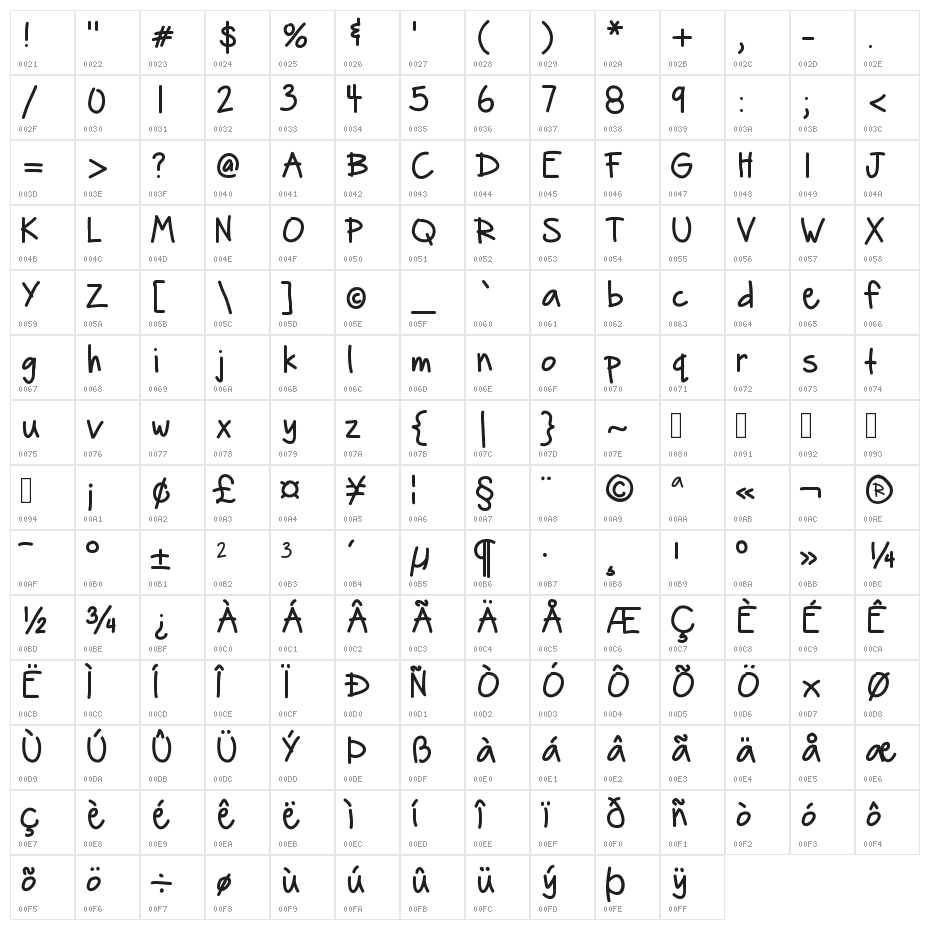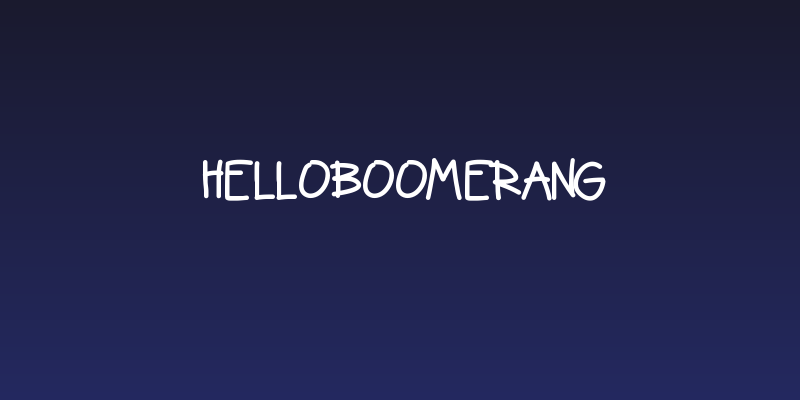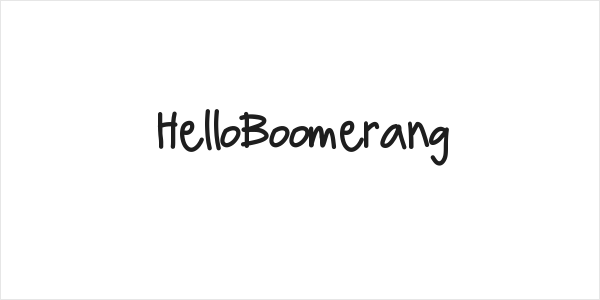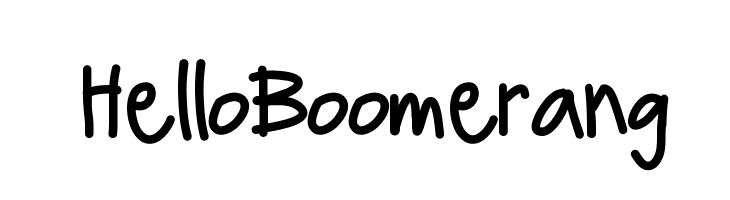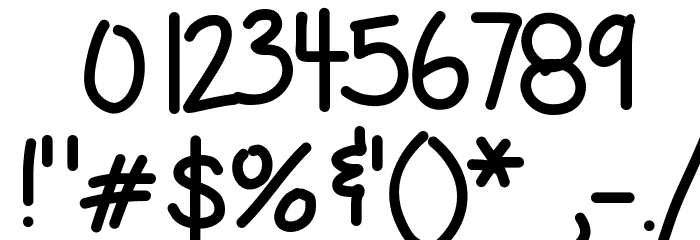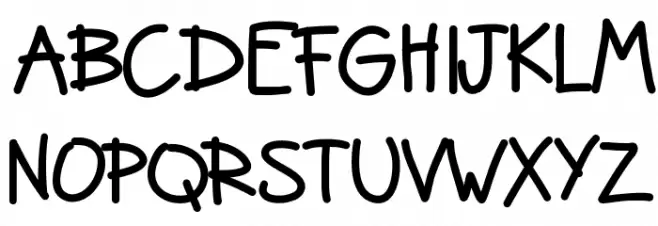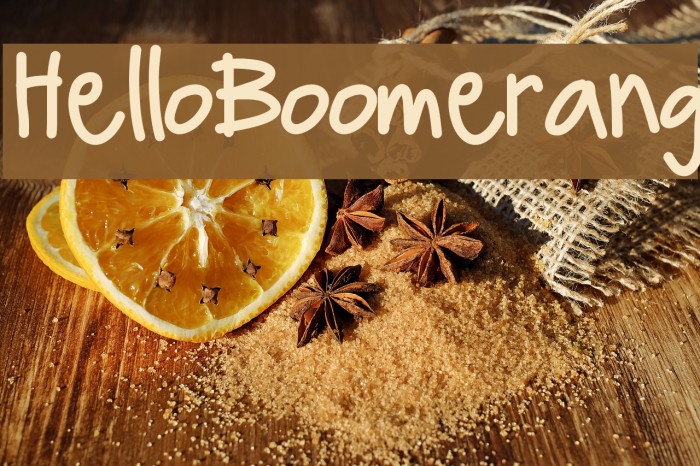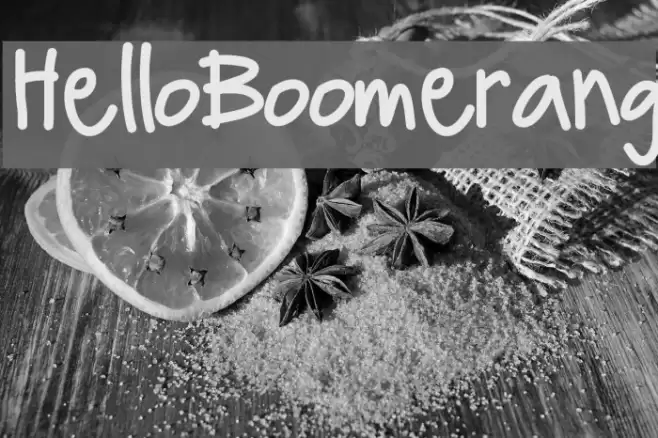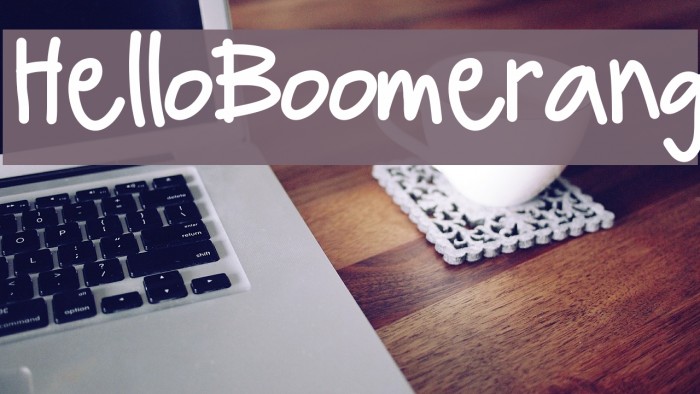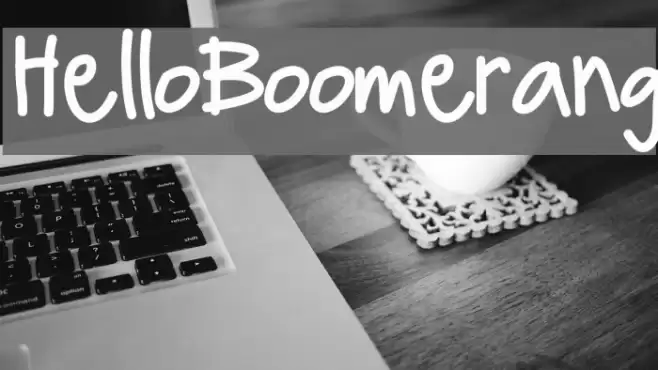
HelloBoomerang Font
HelloBoomerang Description
This font features a playful and casual handwritten style, characterized by its smooth, rounded strokes and slightly irregular letterforms. The uppercase and lowercase letters maintain a consistent flow, giving it an approachable and friendly appearance. The numerals and special characters follow the same informal aesthetic, making it suitable for projects that require a personal touch. The font's design is simple yet effective, with a focus on readability and charm. Its informal nature makes it ideal for creative projects, invitations, and any design that seeks to convey warmth and approachability.
| Overall Style | Casual |
| Use Case | Headlines, Logos, Informal text |
| Proposed Projects | Greeting cards, invitations, children's books, casual branding, and social media graphics. |